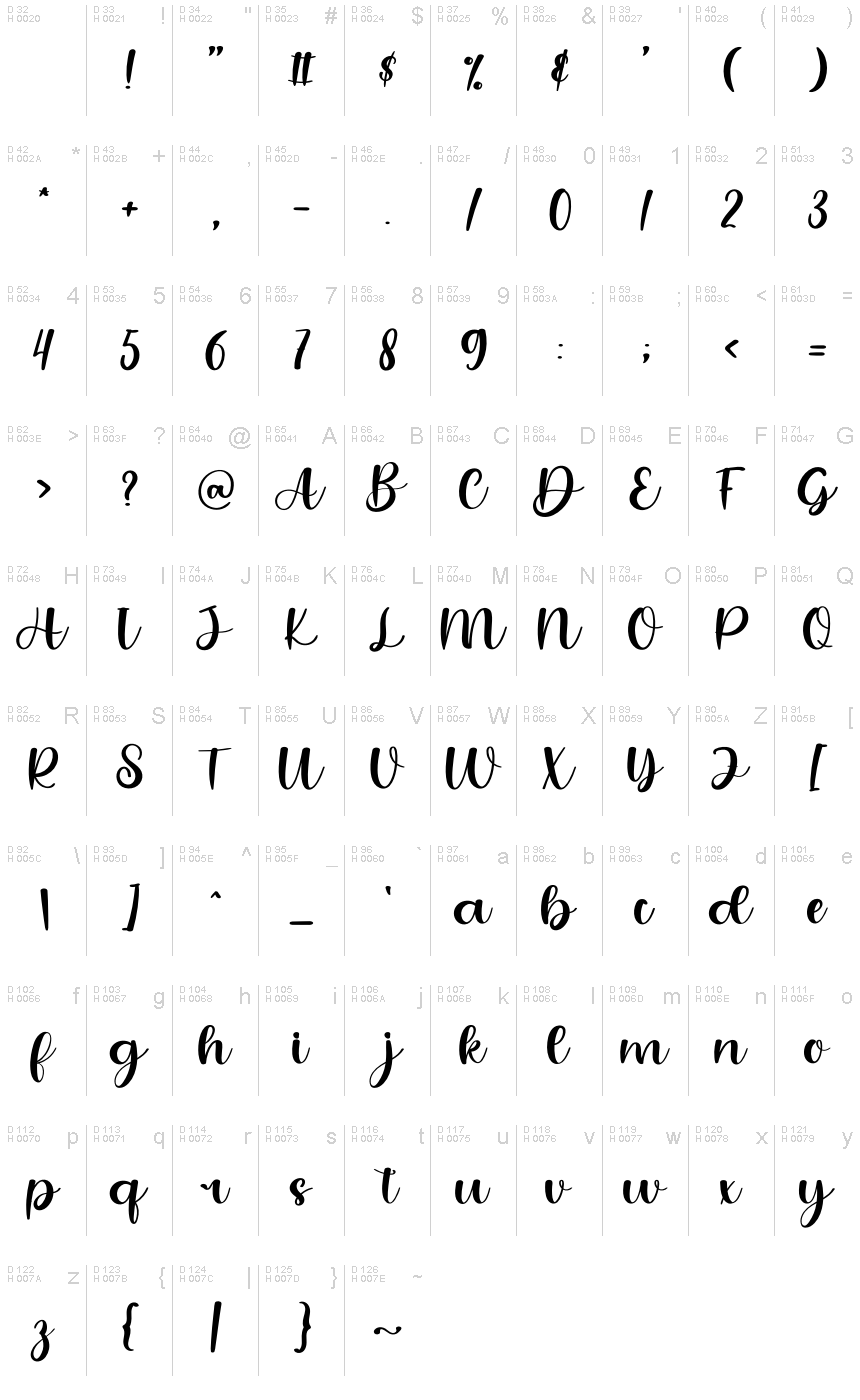
Blush
Blush, from PiPi Creative, exudes a casual elegance with its handwritten style that captures the warmth and intimacy of personal correspondence. The font dances between playful loops and flowing lines, creating a sense of joy and authenticity that feels as though it's penned by hand. Its buoyant curves and gentle slants lend it an approachable, friendly character.
This font's charm makes it perfectly suited for invitations, branding, and advertising where a touch of personal flair is desired. Blush's aesthetic appeal lies in its ability to convey genuine emotion, making it ideal for heartfelt messages on greeting cards or as an expressive voice for boutique businesses looking to establish a relatable brand identity.